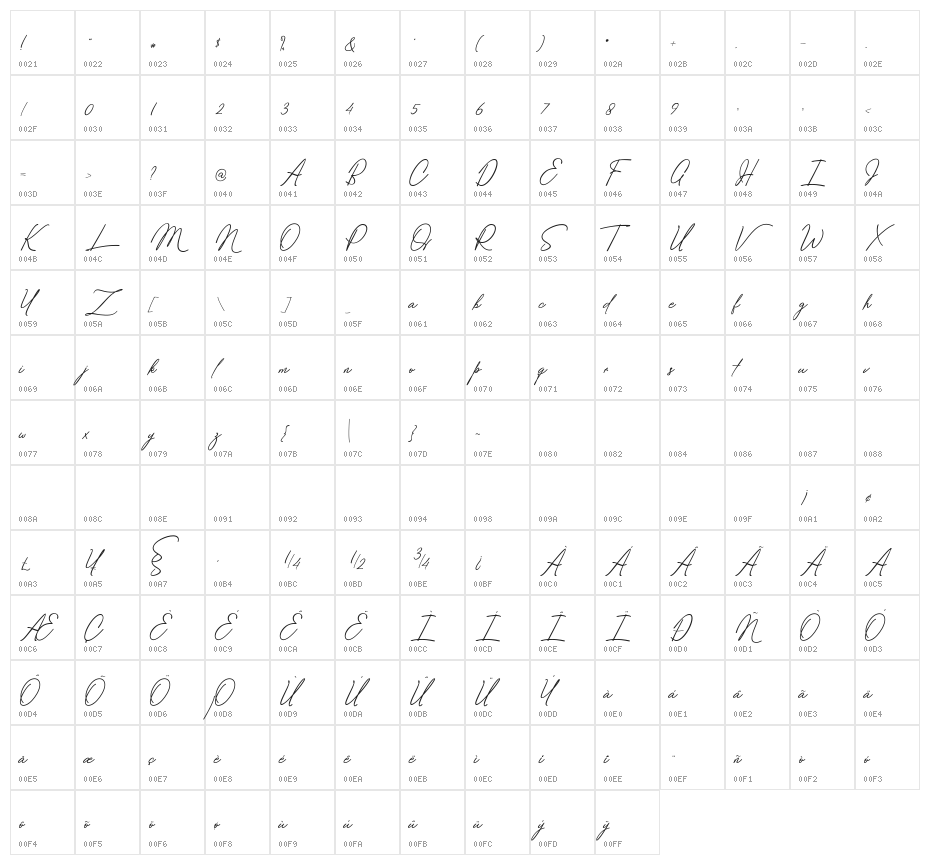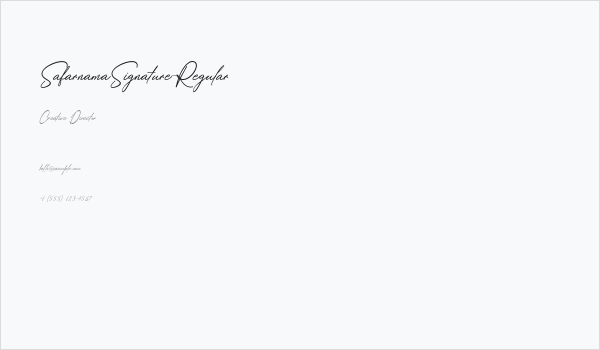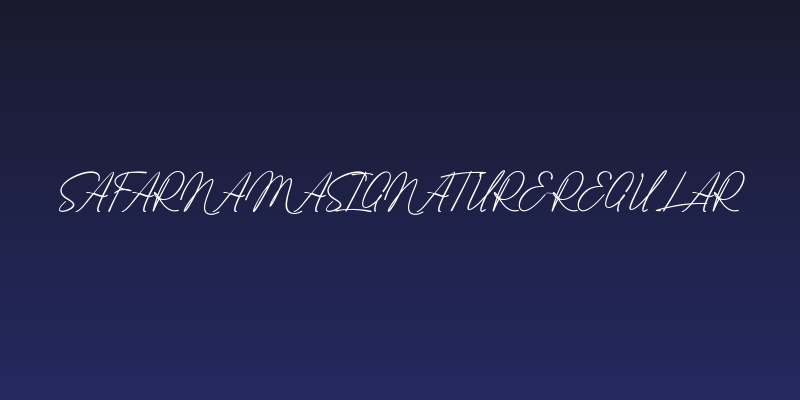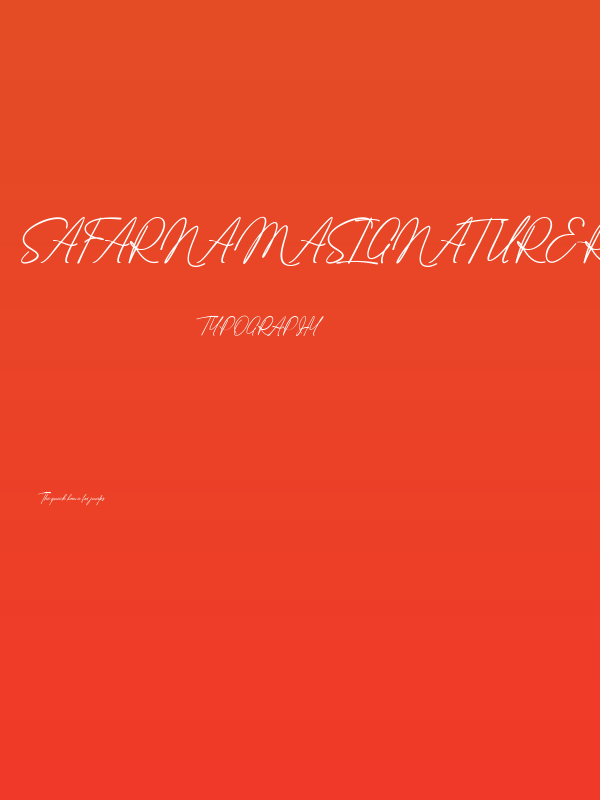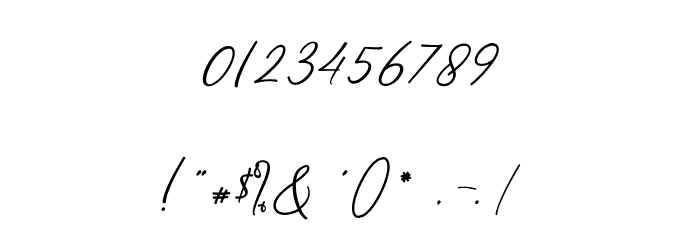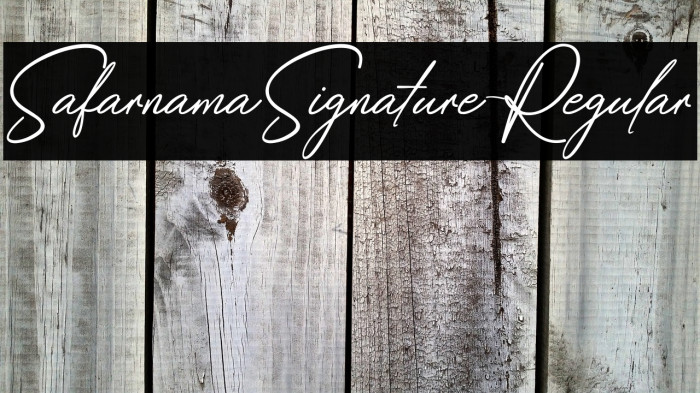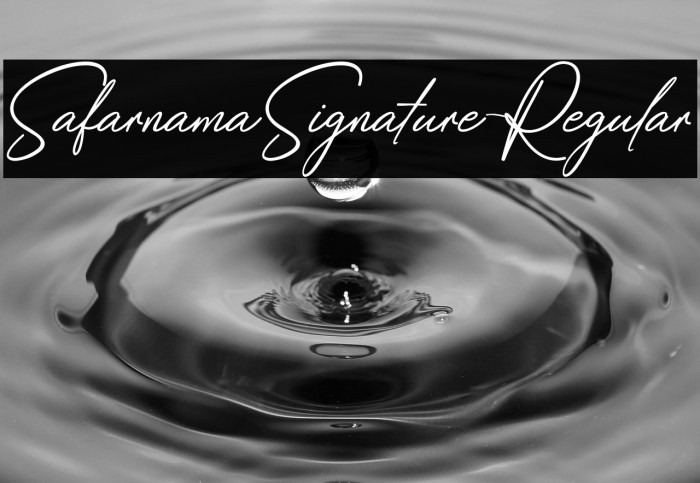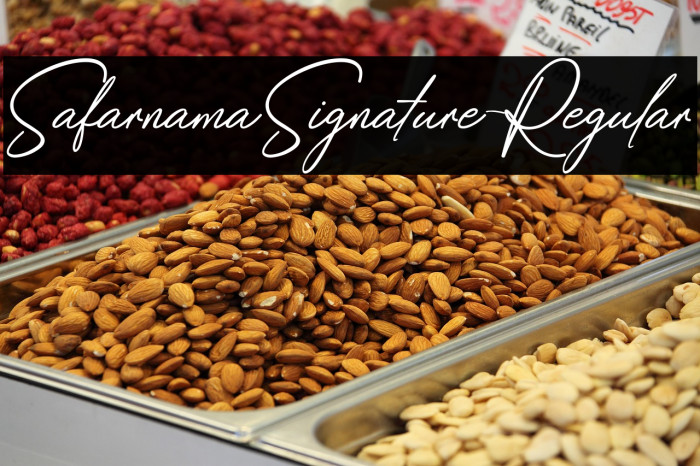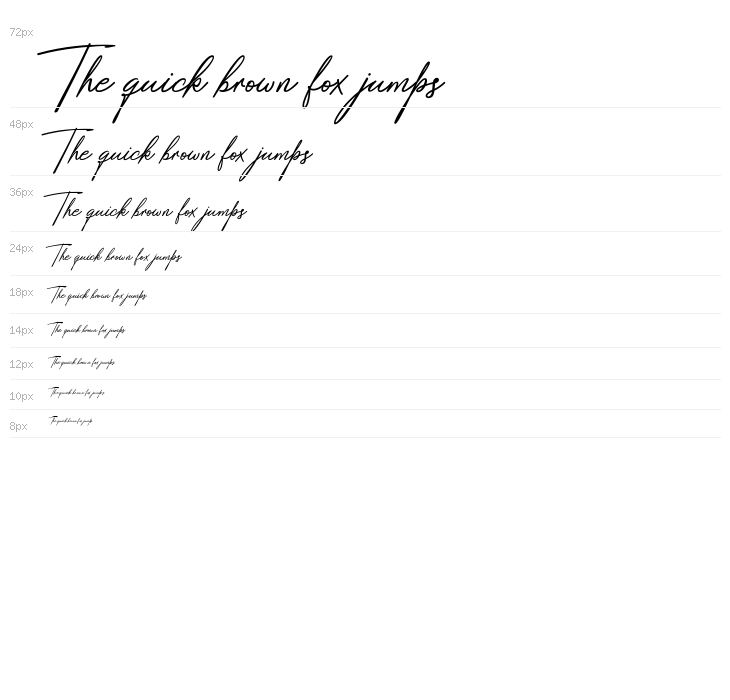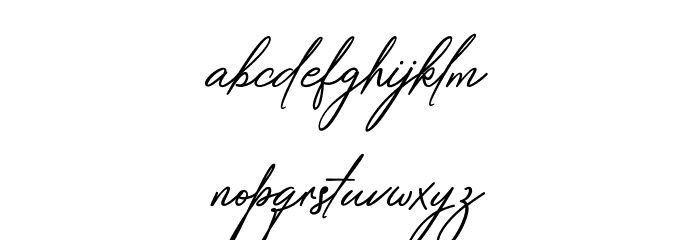
SafarnamaSignature-Regular Font
SafarnamaSignature-Regular Description
This font exudes elegance and sophistication with its fluid, cursive style. The characters are intricately designed, featuring smooth, flowing lines that mimic the natural motion of handwriting. The uppercase letters are tall and graceful, while the lowercase letters maintain a consistent flow, enhancing readability. Numbers and special characters are crafted with the same attention to detail, ensuring a cohesive look throughout. This font is ideal for projects that require a personal touch or a sense of luxury.
| Font Family | Safarnama Signature |
| Proposed Projects | Ideal for wedding invitations, personal branding, luxury product packaging, and elegant stationery. |